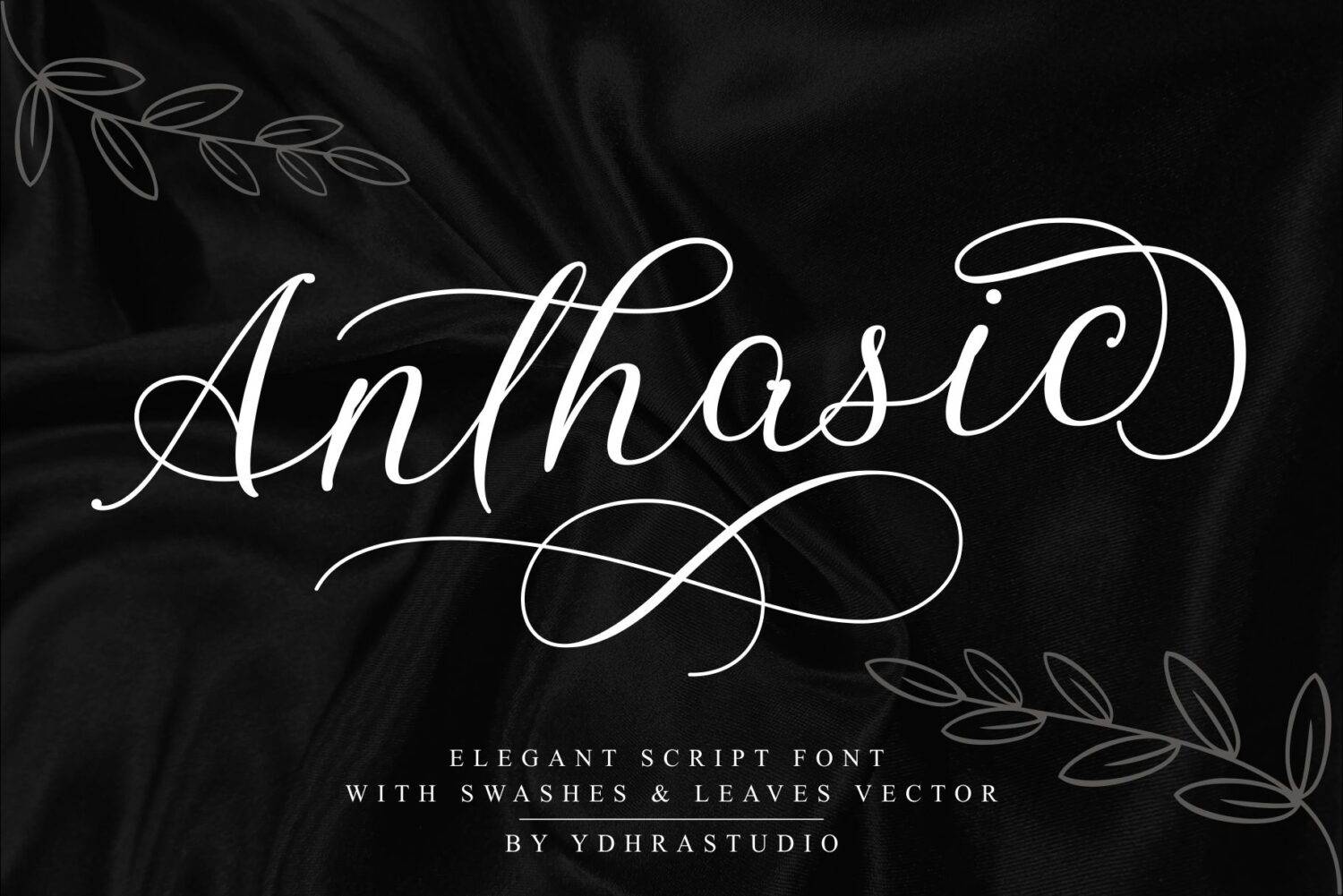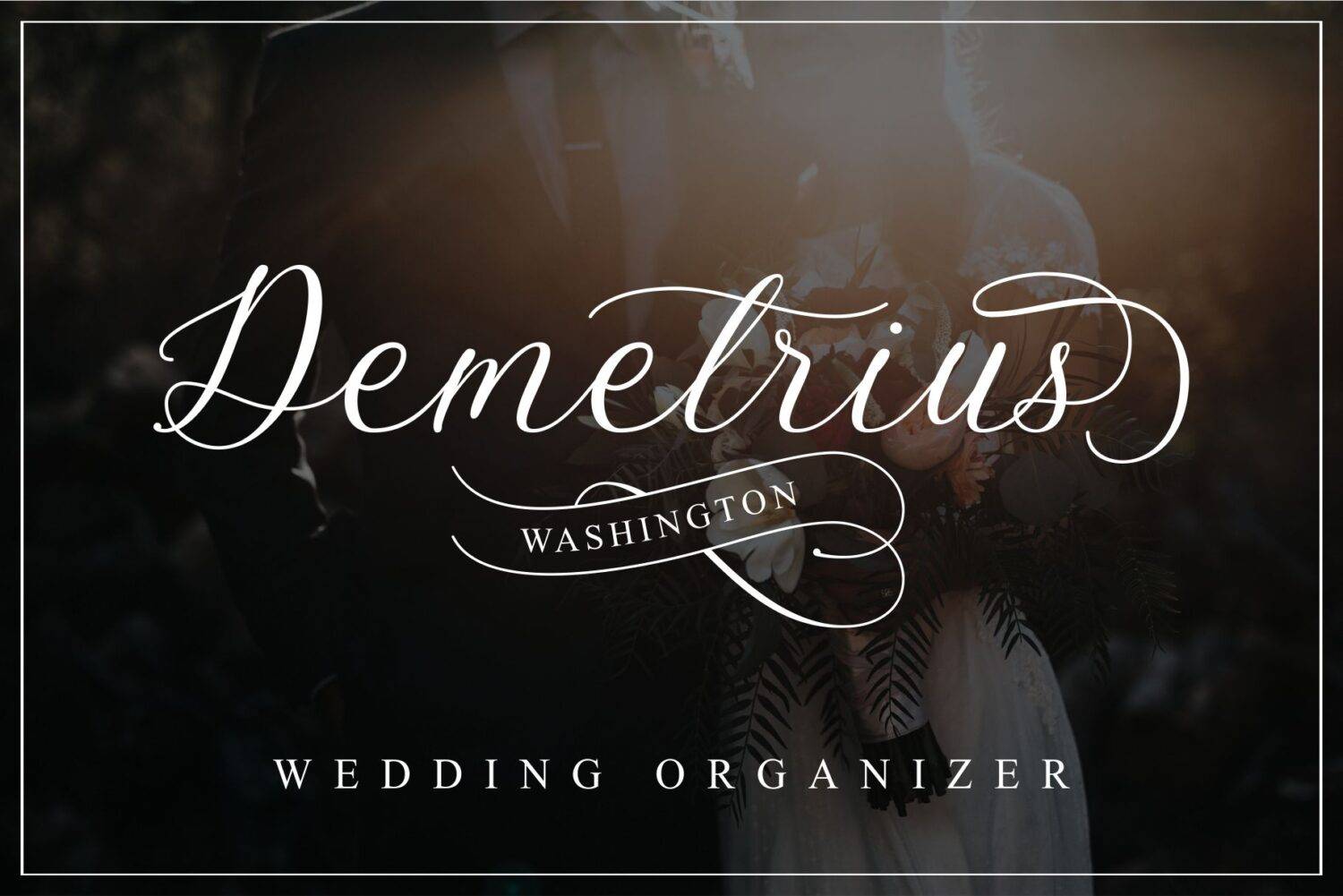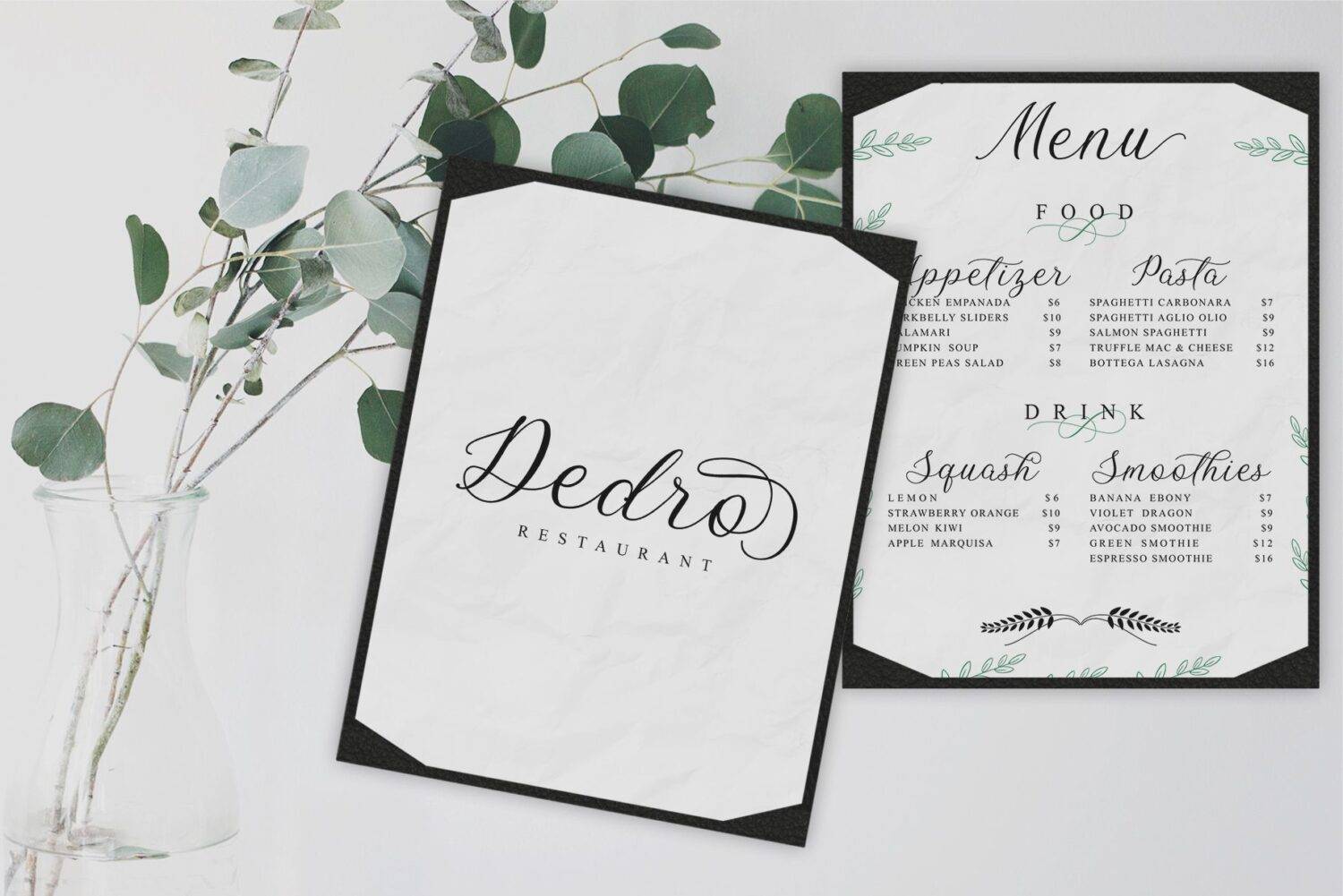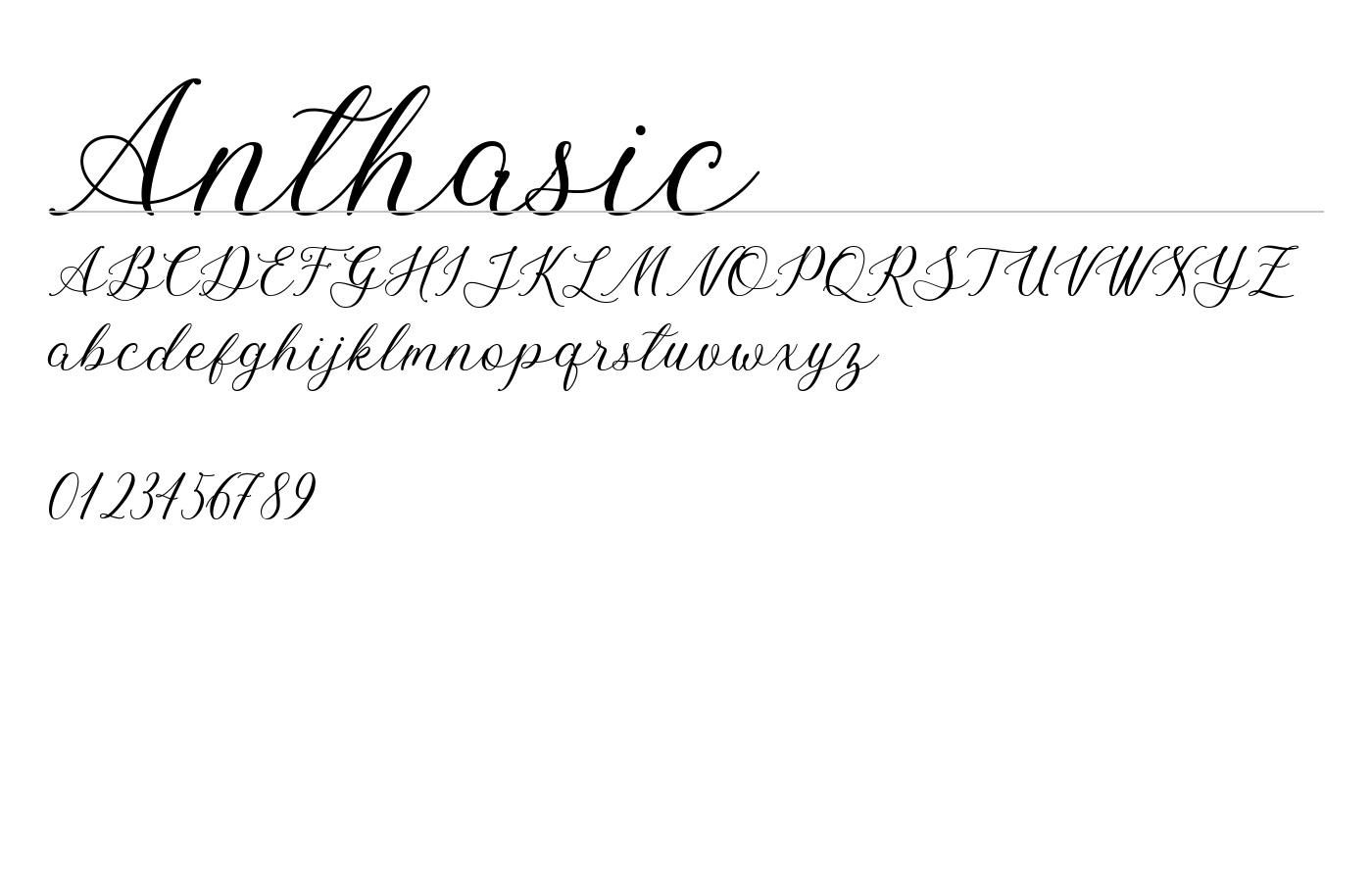
Anthasic is an elegant, light-weight script font with delicate, flowing strokes and a classic calligraphic style. Its fine lines and graceful curves make it perfect for sophisticated branding, invitations, and decorative headlines where a touch of refinement and charm is desired. This font excels in adding a romantic and timeless feel to designs in fashion, luxury, and formal contexts.
| Font family | Anthasic Font |
| Designer | Yudha Rahmat Ageng |